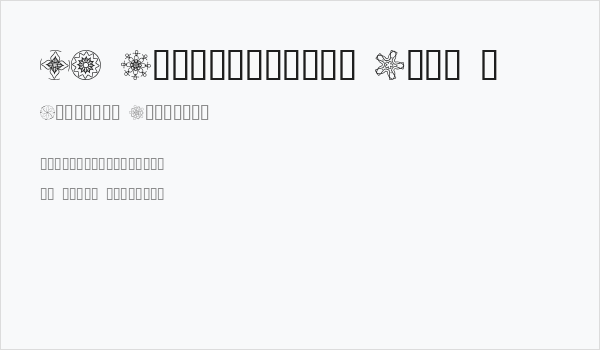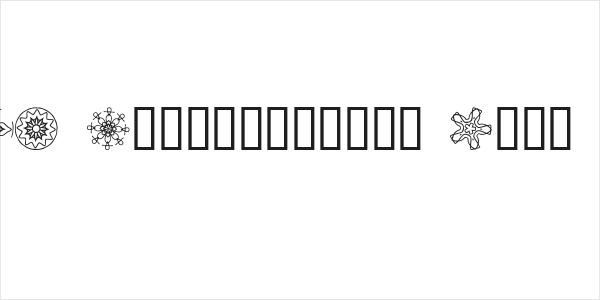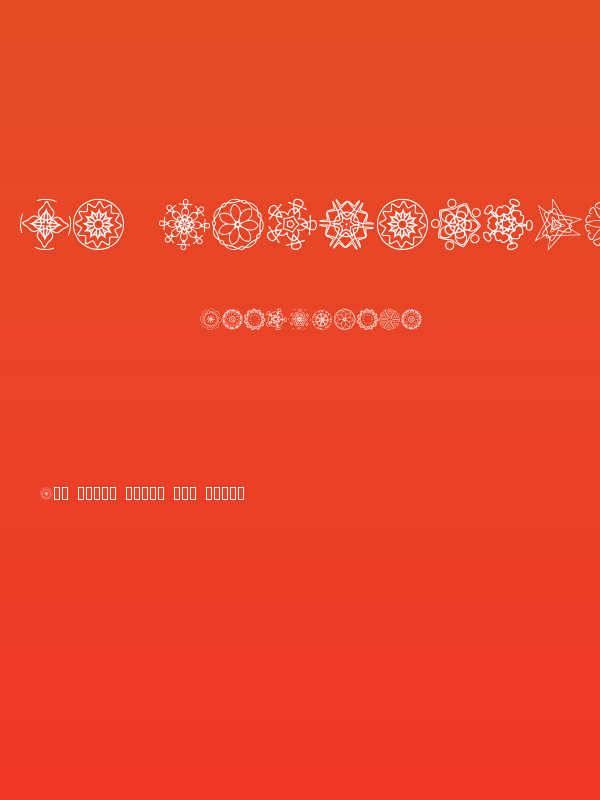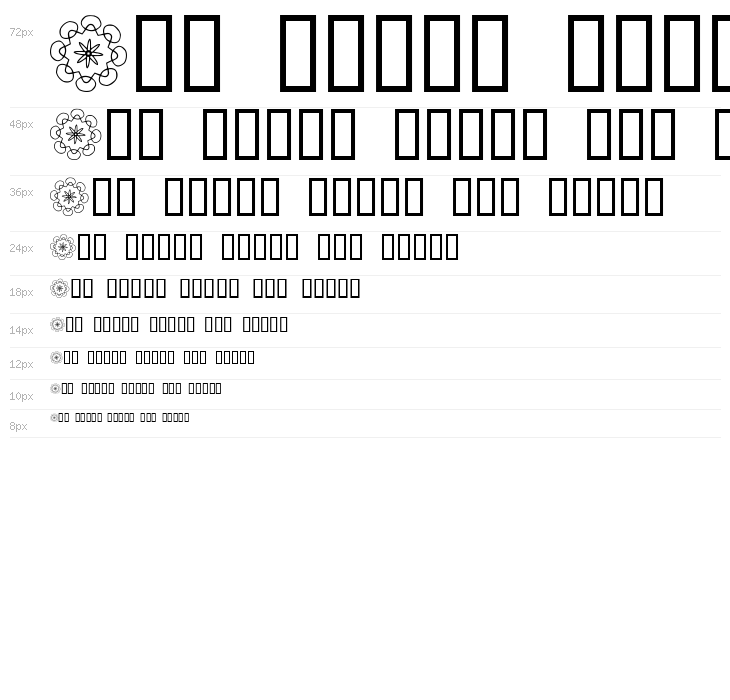
JI Kaleidoscope Bats 5 Font
JI Kaleidoscope Bats 5 Description
A decorative dingbat font featuring intricate kaleidoscope-inspired geometric and floral motifs, each glyph presenting a unique symmetrical design with fine linework and ornamental detail.
| Use Case | Decorative elements, embellishments, graphic design accents. |
| Proposed Projects | Invitations, decorative borders, scrapbooking, art projects, digital stickers, pattern creation. |